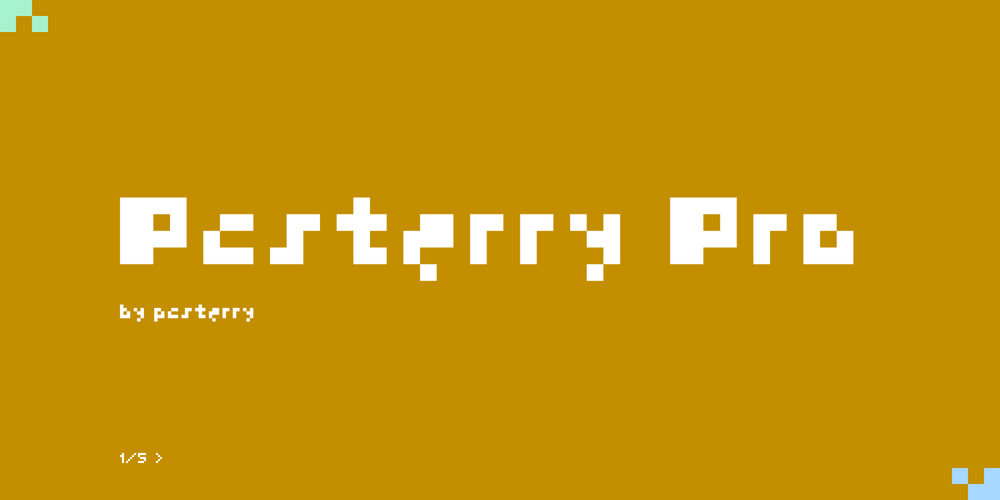
Pcsterry Pro
Pcsterry Pro font
Pcsterry Pro Font Family was designed by Terry Pang and published by Pcsterry. Pcsterry Pro contains 1 styles and family package options. Step back in time with a pixel-perfect typeface designed for the nostalgic charm of retro gaming and modern digital displays. Inspired by classic 8-bit and 16-bit fonts, this typeface brings a unique blend of vintage appeal and crisp readability, making it the perfect choice for small screens, mobile devices, and any project where detail and legibility are paramount.Whether you’re designing retro-style games, websites, or digital interfaces, it delivers a clean, dynamic look that stays true to the pixel art aesthetic. With bold structure and pixel precision, it captures the essence of the gaming era while offering a fresh, modern take for today’s tech-savvy designs.Bring your creative projects to life with the ultimate pixel font for retro enthusiasts and modern designers alike.